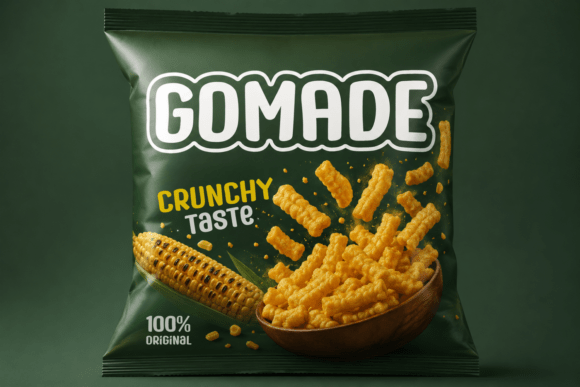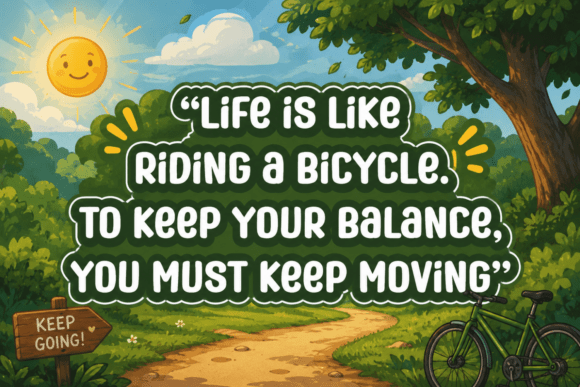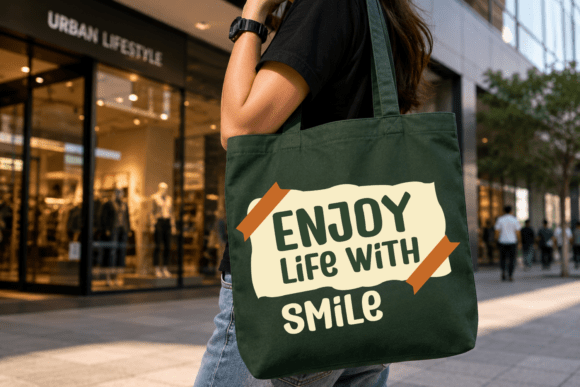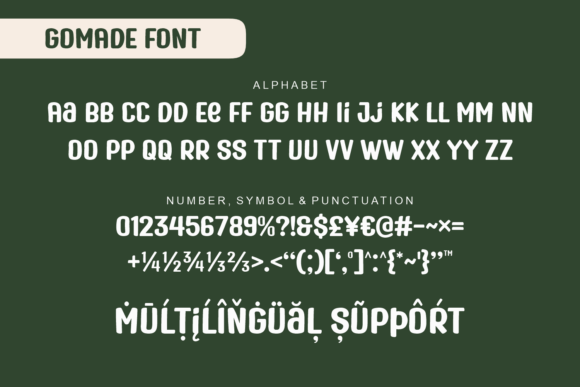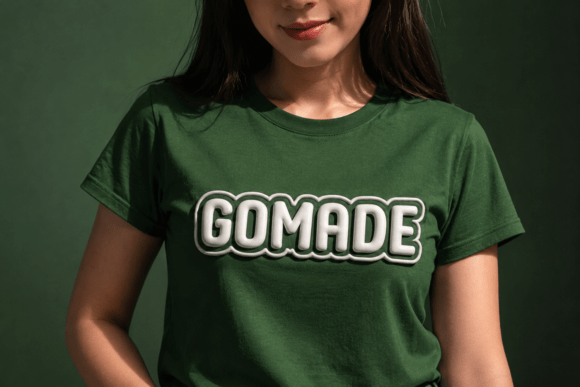
Bring a Touch of Whimsy to Your Designs
As a designer, have you ever stared at a blank page, searching for the perfect font to capture the essence of your brand? Maybe you’re working on a project that needs a dash of playfulness, a pinch of nostalgia, and a whole lot of personality. That’s where the Gomade Font comes in – a charming display font designed to brighten up your designs with its friendly energy.
With its bold, plump letterforms and soft, rounded contours, the Gomade Font is perfect for creating a professional yet human-centric visual identity that’s sure to grab attention. Its heavy visual weight and slightly bouncy baseline evoke a sense of creative joy, making it an ideal choice for youth-oriented branding, playful product packaging, and high-energy social media headers.
Gomade Font Key Features
- Font Family: Gomade is a sans-serif font family designed for digital use. It includes 8 font weights and 3 font styles (Regular, Italic, Bold, Bold Italic, Light, Light Italic, ExtraLight, ExtraLight Italic).
- Character Set: Gomade supports a wide range of languages, including Latin, Cyrillic, Greek, and more, making it a versatile choice for global branding and design projects.
- Unique Characteristics: Gomade features a clean, modern design with a subtle rounded edge, making it perfect for use in digital products, branding, and marketing materials.
Gomade Font Review
I recently had the chance to work with the Gomade font, and I must say it’s a mixed bag. On the one hand, there are some things that I really like about it.
- ✨ The font has a unique, hand-drawn feel that can add a lot of character to a design. It’s perfect for creating a more personal or vintage look.
- ✨ The font is highly customizable, with a wide range of weights and styles to choose from. This makes it easy to find the perfect fit for your project.
- ✨ The font is also highly legible, even at smaller sizes. This makes it a great choice for body text or headings.
On the other hand, there are some limitations to the font that may make it less suitable for certain projects.
- ⚠️ The font can be a bit too whimsical for some projects. If you’re looking for a more serious or formal font, Gomade may not be the best choice.
- ⚠️ The font may require some tweaking to get the spacing and alignment just right. This can be a bit time-consuming, but the end result is worth it.
Overall, I think the Gomade font is a great choice for designers who want to add a bit of personality to their work. While it may not be the best choice for every project, it’s definitely worth considering for designs that require a more hand-drawn or vintage feel.
Tips for Getting the Most Out of Gomade Font
Here are some tips to get the most out of Gomade font:
- Use Gomade font in bold or italic styles to add emphasis to your text.
- Combine Gomade font with other fonts to create a unique and eye-catching design.
- Experiment with different font sizes and colors to find the perfect balance for your design.
Gomade font is perfect
Alternatives to Gomade Font for Designers
Gomade Font is a sans-serif font known for its clean and modern aesthetic. However, there are several alternatives that can be used depending on the design project’s requirements. Here are a few options:
Montserrat is a geometric sans-serif font designed by Julieta Ulanovsky. It’s a great alternative to Gomade Font when you need a font with a strong grid-based structure. Montserrat is ideal for digital products, logos, and headlines. Compared to Gomade Font, Montserrat has a more geometric feel and is more suitable for modern and minimalist designs.
What is the recommended font size range for Gomade Font?
The recommended font size range for Gomade Font is between 12px and 24px. This range provides optimal readability and legibility, making it suitable for a variety of design applications, including body text and headings.
Does Gomade Font support Unicode characters?
Yes, Gomade Font supports a wide range of Unicode characters, including Latin, Cyrillic, and Greek alphabets. This ensures that designers can use the font to create content in multiple languages, making it a versatile choice for global design projects.